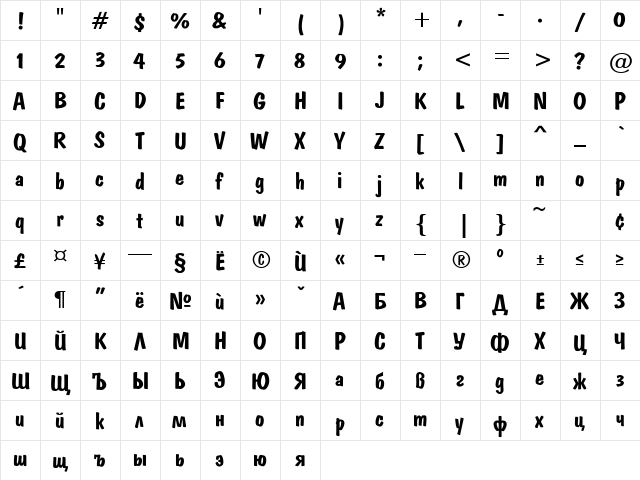
Domkrat Bold
Design Context for Domkrat Typeface
Domkrat takes a measured approach to typography — its balanced proportions and neutral character make it a reliable workhorse for both digital and print work. Its bold stroke weight gives it real presence on the page.
Pro Tip: Use Domkrat in both headline and body roles to test its range before committing to a single application.